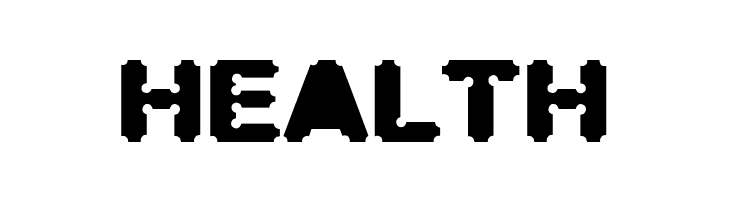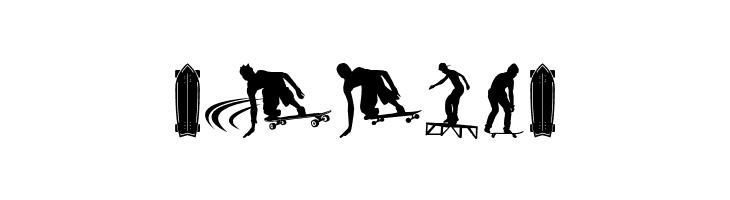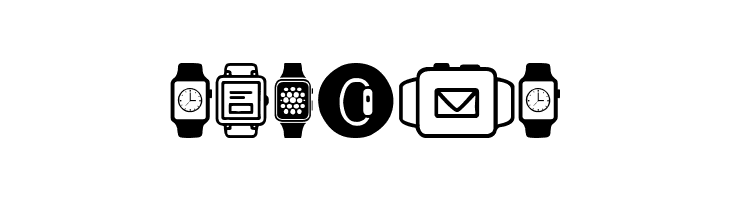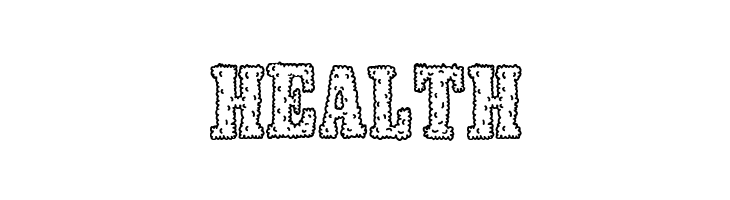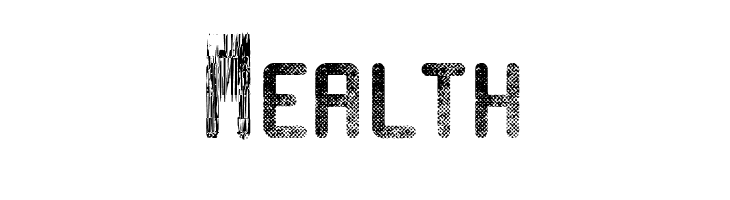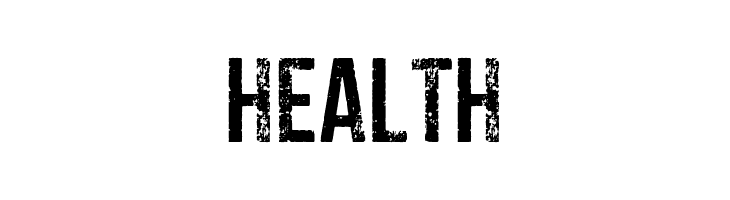
Bold, decorative fonts ideal for sale and promotional graphics.
A bold, industrial-inspired font with gear-like cut-out shapes.
Skateboarding-themed pictogram font with silhouettes and icons.
Modern, bold smartwatch icon set with geometric shapes.
A playful, cloud-like decorative font with a fluffy, bold appearance.
A bold, geometric font with a unique textured pattern, ideal for modern designs.
A decorative icon font featuring sushi and Japanese food illustrations as characters.
A futuristic, geometric font with bold, angular letterforms.
A bold, handwritten-style font with dynamic, slanted characters.